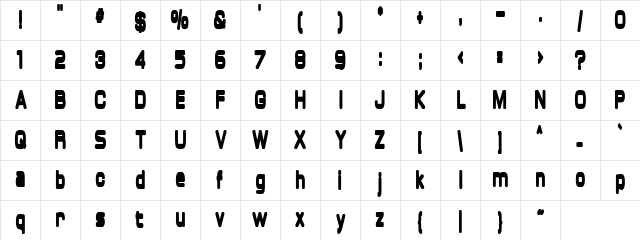
Overload SuperBold Free Font
Overload SuperBold
Style: SuperBold
Design Context for Overload
Overload is a composed and adaptable typeface that performs quietly and consistently across a wide range of design contexts. Its bold stroke weight gives it real presence on the page.